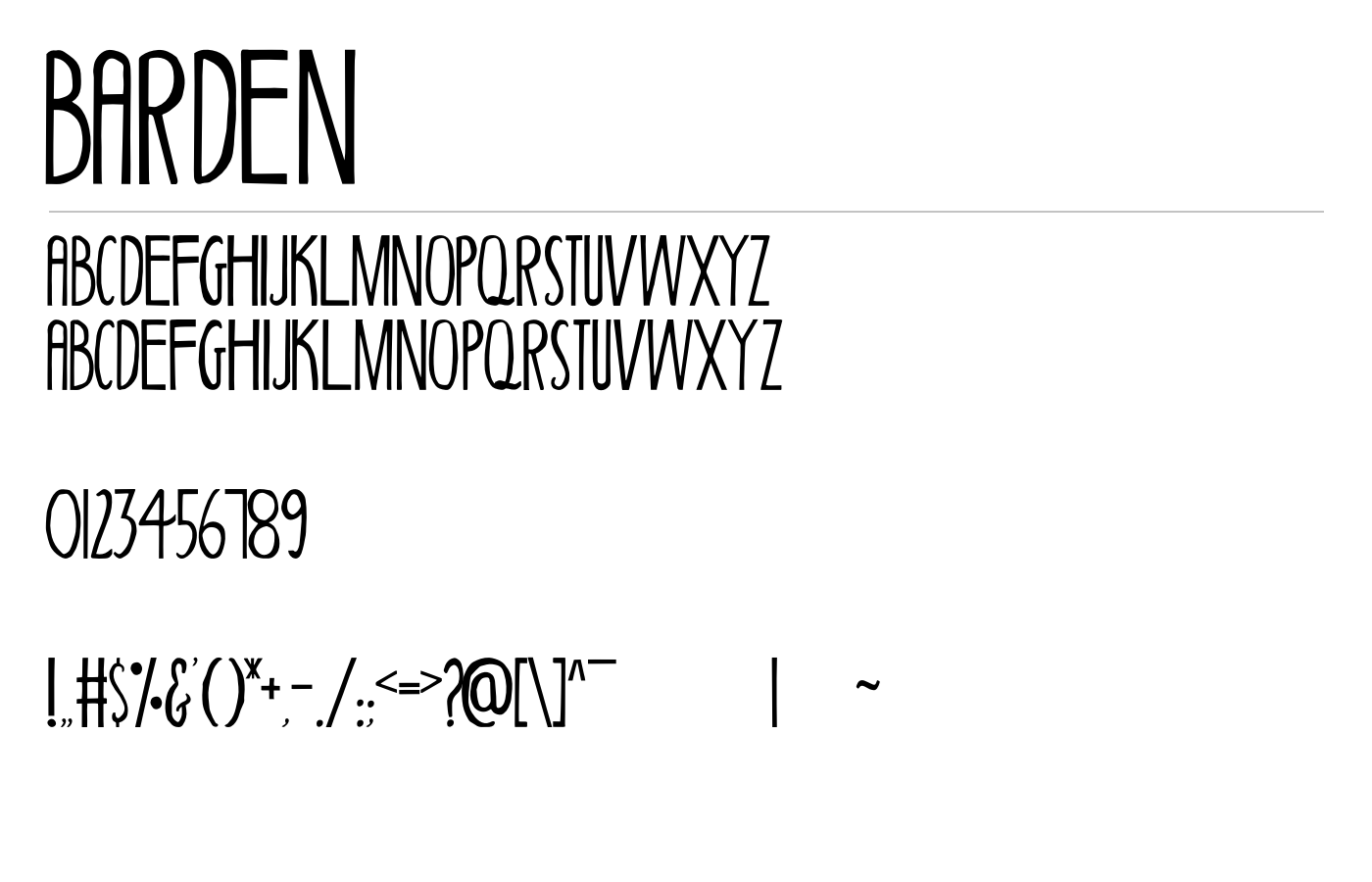
Barden is a narrow, tall sans serif font with a playful and quirky personality, characterized by its uneven stroke widths and slightly irregular shapes that give it a hand-drawn feel. Its condensed form and distinct letterforms make it ideal for creative headlines, logos, and branding projects that seek a unique, approachable, and artistic look. This font works well in designs needing a mix of modern simplicity and expressive charm.
Barden Font
About Barden Font
| Font family | Barden Font |